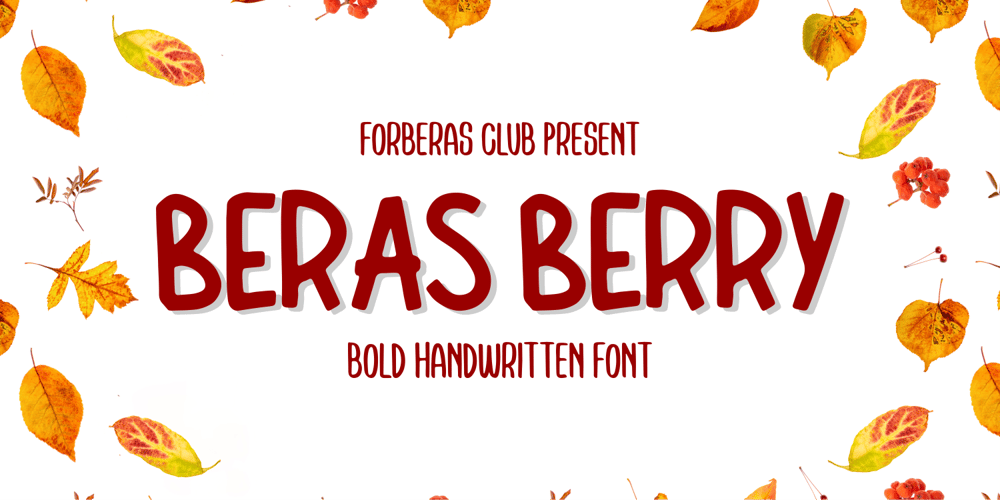
Beras Berry Font Family was designed by ANGGI HERMAWAN and published by Forberas Club. Beras Berry contains 1 styles and family package options. Beras Berry is a fun display font. This font is perfect for fun themed designs, especially when combined with everything cute or happy moment.